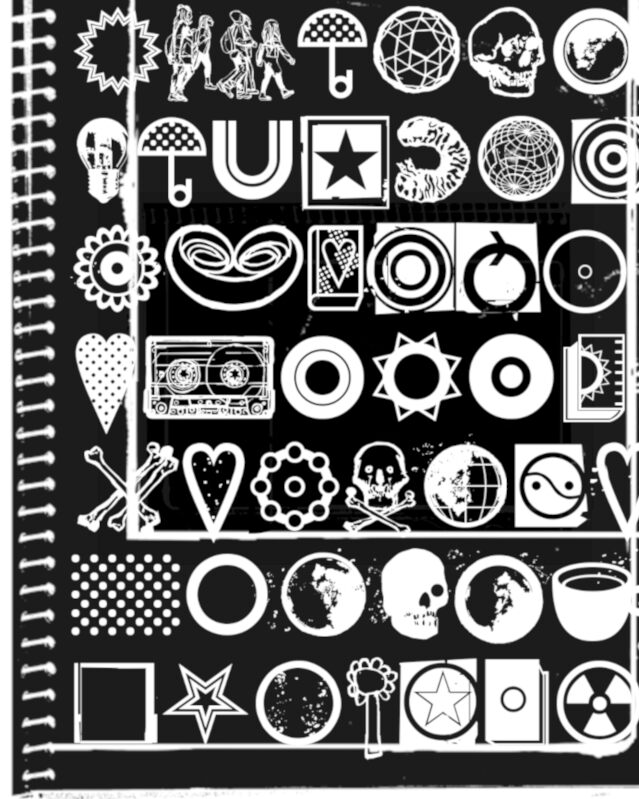
Outomuoto
Outomuoto font is a dingbats typeface by Juha Korhonen. It holds a collection of useful everyday symbols such as arrows, numbers, lines, and shapes. The unique part about this font is that it will work in all kind of digital applications and platforms like Illustrator, Photoshop, WordPress websites, Google Docs or Sheets etc.
Some examples for potential use cases include web design, app UI/UX design, print design (posters, lettering), PowerPoint or Google Slides presentations etc. The possibilities are infinite with this free bold font that’s available to users immediately after download!